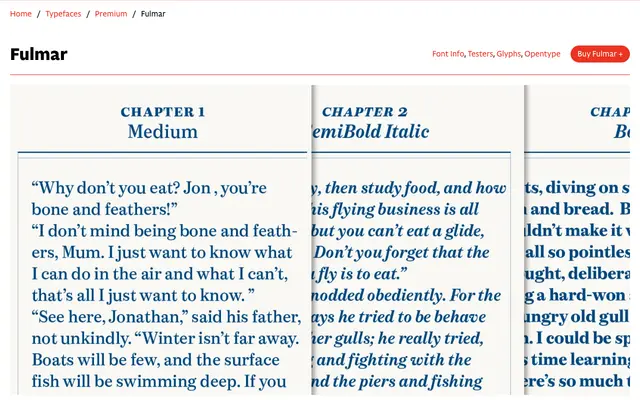
Fulmar
CAST · Leo Philp · 2016
A modern Scotch serif by Leo Philp, drawing on Alexander Wilson, 17th-century French modulation and 18th-century Belgian type for extended reading.
Designed by Leo Philp and developed between 2016 and 2020, it synthesises Scottish, French and Belgian historical precedents into a contemporary structure with five weights and matching italics. Small caps, oldstyle and tabular figures, fractions, superscript, subscript and six stylistic sets give it the typographic range expected of serious book work. The foundry includes variable font versions across all ten styles, and the character set covers well over eighty Latin-script languages.
Explicitly described as a modern Scotch, drawing on Alexander Wilson of Fife, 17th-century French modulation and 18th-century Belgian influence, placing it firmly in the Scotch Roman branch of the modern serif tradition.